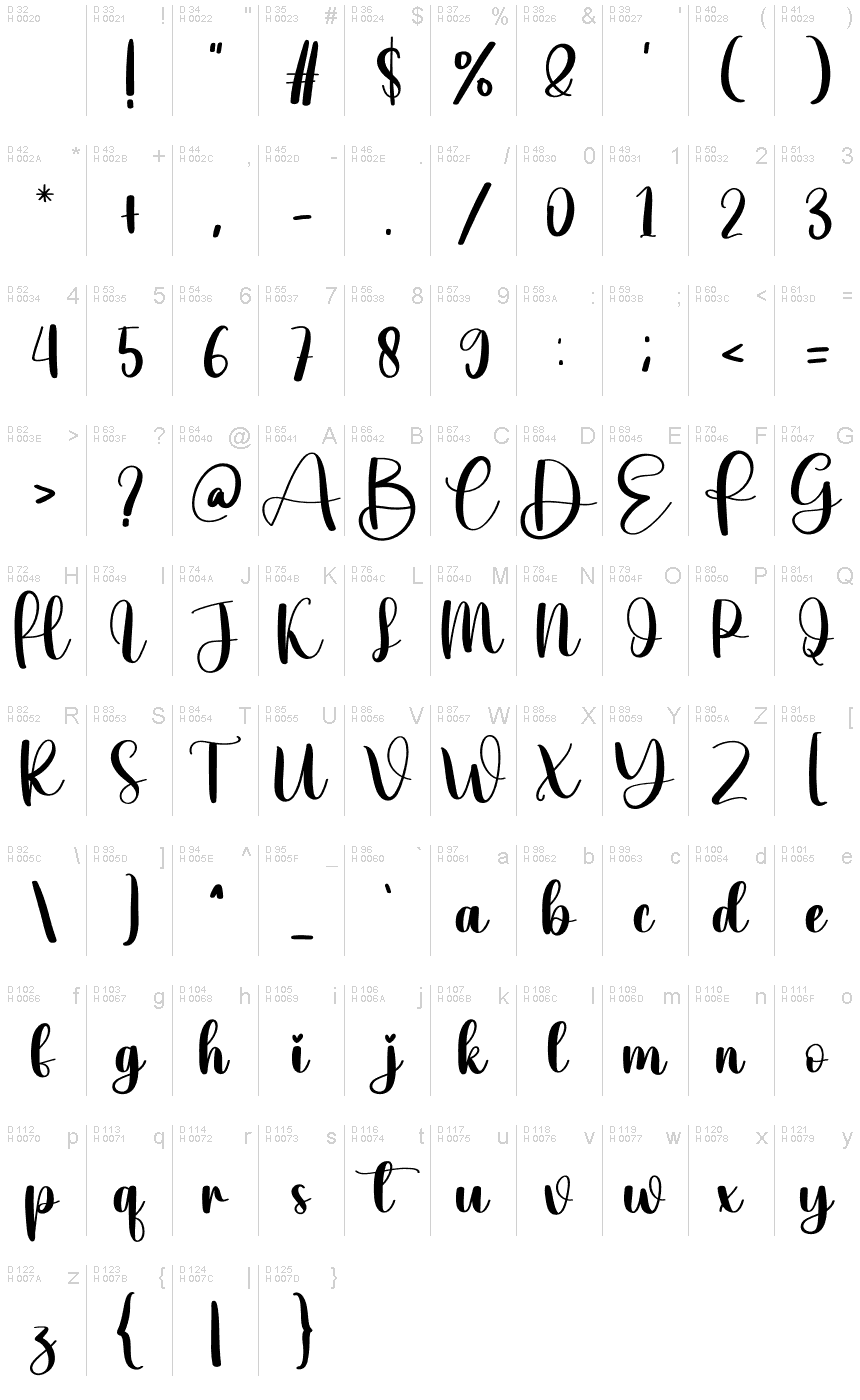
Bath
Bath, a handwritten font crafted by Scratchones, exudes a personal touch that brings warmth and authenticity to any project. Its fluid strokes and varied line weights mimic the quirks of natural handwriting, creating an intimate connection with the reader. The font's elegant loops and subtle imperfections offer a bespoke aesthetic that stands out in invitations, branding materials, and artistic compositions.
The casual yet sophisticated charm of Bath makes it an ideal choice for designs seeking to combine approachability with flair. Whether it's gracing the pages of a boutique magazine or adding character to personalized stationery, Bath is versatile enough to enhance the narrative of any creative endeavor where a handcrafted feel is desired.